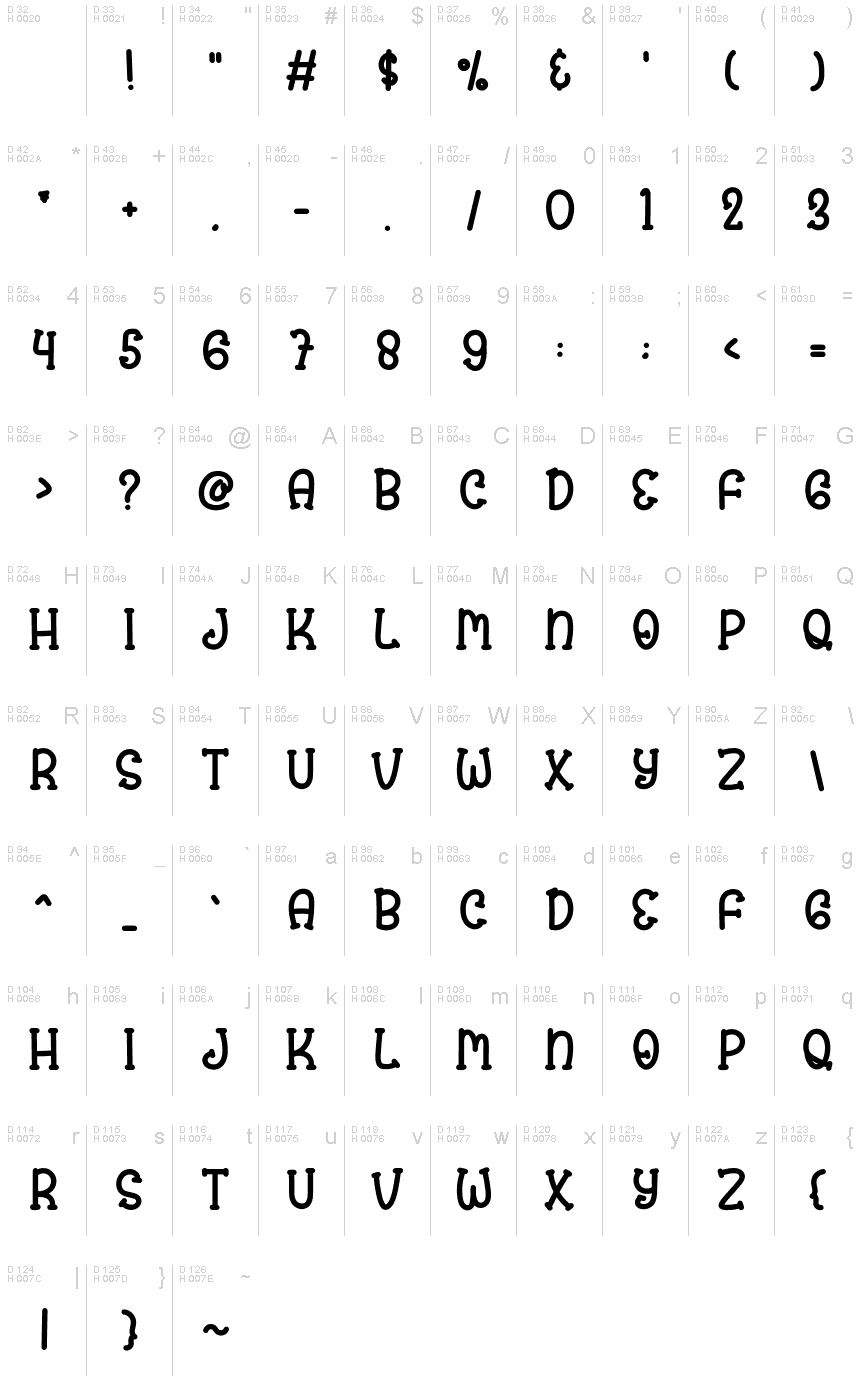
Prince Baby
Meet Prince Baby, the cartoonish display font by Titik Creative! This fun and friendly font is perfect for projects like logo designs, posters and children's books. Let its playful personality bring a unique energy to your work!